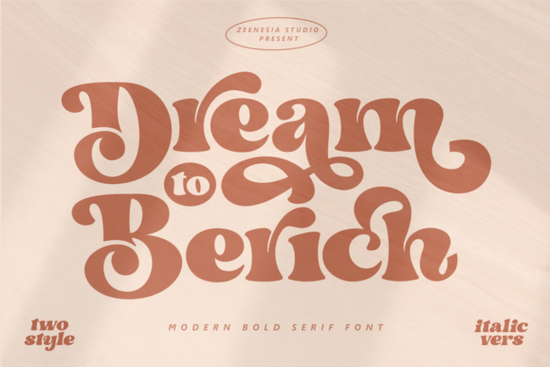
Designers, crafters, and small business owners often look for fonts that can elevate their projects without complicating the process. The {category} called Dream to Berich Font Font is a great example of a versatile serif typeface that brings style and ease to any design. Whether you're working on branding, social media graphics, or print materials, this font offers a modern yet classic look that stands out.
One of the standout features of Dream to Berich Font Font is its PUA encoding. This means you can access all the glyphs and swashes directly without needing special software or additional steps. It simplifies the design workflow, making it easier to experiment with different typographic styles. The font’s clean lines and elegant curves make it suitable for both digital and print applications.
If you're looking for a font that combines functionality with visual appeal, Dream to Berich Font Font could be a valuable addition to your collection. Its trendy aesthetic makes it ideal for creative hobbyists who want to add a unique touch to their work. For print-on-demand sellers, having access to high-quality fonts like this can help differentiate your products in a competitive market.
What Makes Dream to Berich Font Font Unique?
Unlike many other fonts, Dream to Berich Font Font is designed with flexibility in mind. It includes a wide range of characters, including uppercase and lowercase letters, numbers, and symbols. This makes it easy to use across different design projects, from headlines to body text. The font also supports multiple languages, which is helpful if you're working with international audiences or multilingual content.
The font's serif style gives it a refined appearance, making it perfect for projects that require a touch of sophistication. Whether you're designing a logo, a poster, or a wedding invitation, Dream to Berich Font Font can help you achieve a polished look. Its readability at various sizes ensures that it works well in both large and small formats.
How to Use Dream to Berich Font Font Effectively
To get the most out of Dream to Berich Font Font, consider how it fits into your overall design strategy. Start by experimenting with different combinations of fonts to find the right balance between contrast and harmony. Pairing it with a sans-serif font can create a modern, clean look, while using it alone can add a bold, elegant feel to your work.
When working with this font, pay attention to spacing and alignment. Proper kerning and leading can greatly improve the readability and visual appeal of your designs. You may also want to test the font in different contexts, such as on web pages, social media posts, or printed materials, to see how it performs in real-world scenarios.
If you're new to using serif fonts, Dream to Berich Font Font is a great starting point. Its intuitive design and user-friendly encoding make it accessible even for those with limited experience in typography. As you become more familiar with it, you'll likely discover new ways to incorporate it into your creative projects.
Whether you're a professional designer or a creative hobbyist, finding the right font can make a big difference in your work. Dream to Berich Font Font is a reliable choice that combines style with practicality. By understanding its features and how to use them effectively, you can enhance your designs and bring your creative vision to life.
Before finalizing your project, take a moment to review your design and ensure that the font complements the overall message and purpose. A well-chosen font can elevate the quality of your work and leave a lasting impression on your audience.
- Test the font in different sizes and formats to ensure readability.
- Explore variations of the font to find the best fit for your project.
- Use it in combination with other fonts for a balanced design.